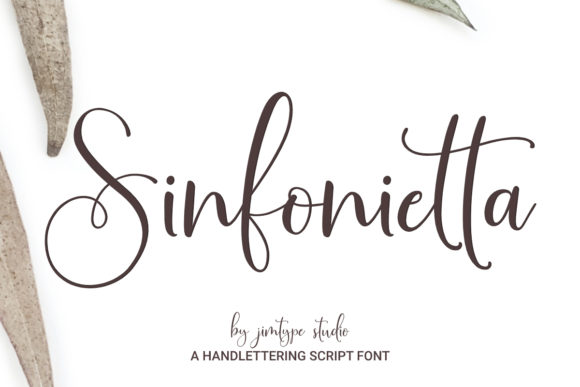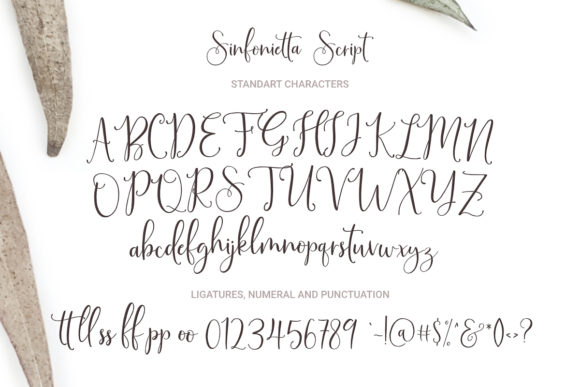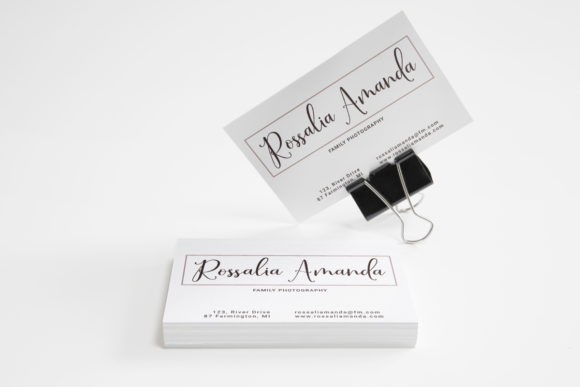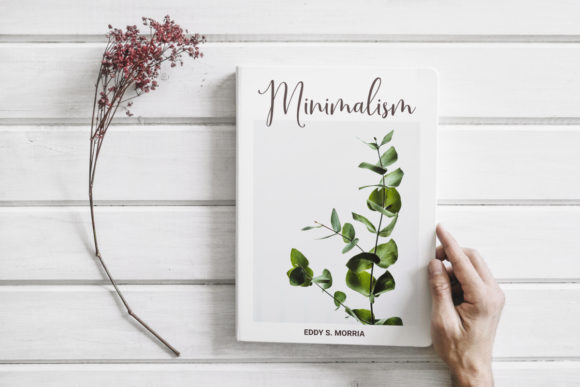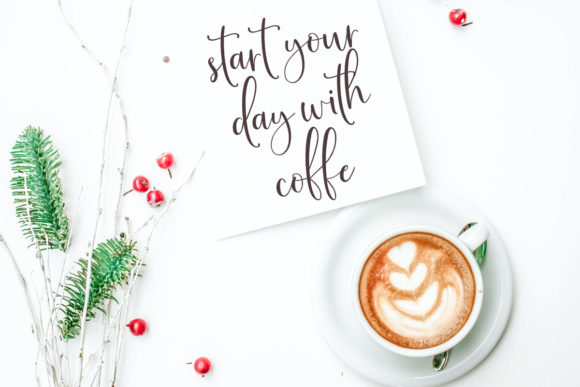
About Sinfonietta Font
Sinfonietta is a sweet, simple, and beautiful handwritten font. Fall in love with its incredibly versatile style and use it to create gorgeous wedding invitations, beautiful stationary art, eye-catching social media posts, and much more!